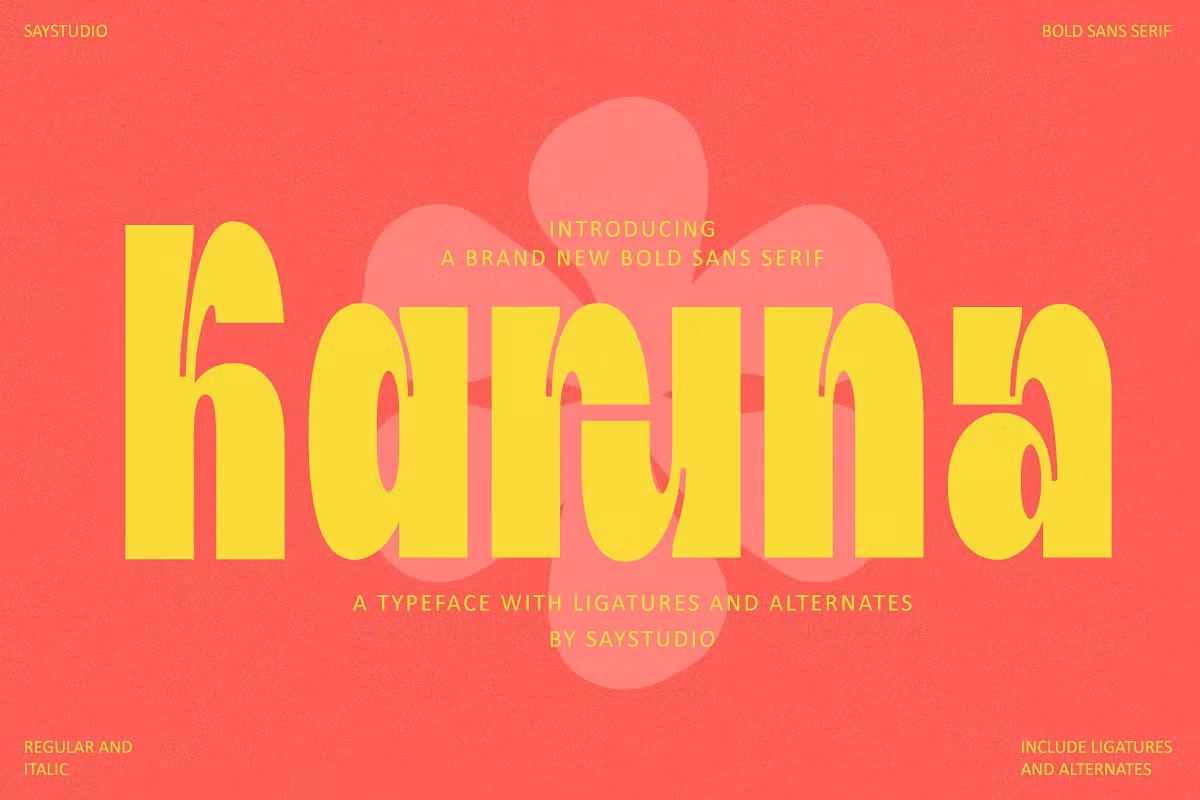
Karuna - Bold Sans Font Free Download
The Karuna - Bold Sans Font Free Download is a striking and modern typeface designed for impactful headlines, branding, and large-scale designs. With its strong, clean lines and geometric shapes, this bold sans-serif font is perfect for posters, logos, website headers, and any project that requires a commanding, contemporary presence.
Karuna offers both high legibility and visual appeal, making it an excellent choice for both digital and print applications. It includes uppercase letters, numbers, punctuation, and multilingual support, ensuring versatility for a variety of creative needs.